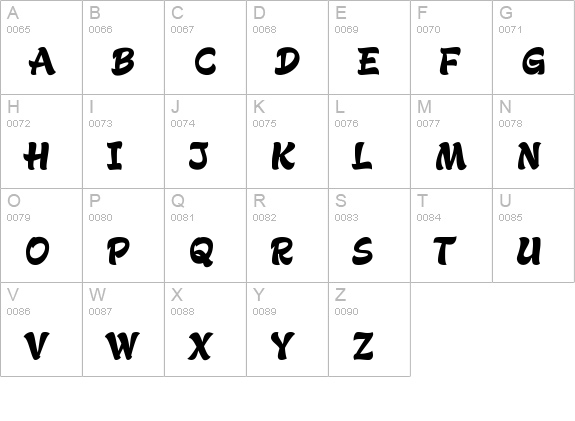
Gecko Personal Use Only Font Details
Introducing Gecko Personal Use Only font, a stylish and versatile typeface that is perfect for adding a touch of elegance to your projects. This font boasts a unique and captivating design, with its sleek and balanced letterforms that exude modern sophistication. Gecko Personal Use Only font is not only visually pleasing but also incredibly functional, making it ideal for a wide range of projects including invitations, branding, logos, and more. Its clean and legible characters ensure readability while still maintaining a sense of individuality and charm. What sets Gecko Personal Use Only font apart is its availability as a free download at FontsMarket.com. Yes, you read that right - this font is freely available, allowing you to enhance your designs without breaking the bank. FontsMarket.com is a trusted source for high-quality fonts, ensuring that you can download Gecko Personal Use Only font with confidence. Whether you're a professional designer or a creative enthusiast, Gecko Personal Use Only font is the perfect addition to your font library. Its versatility allows it to adapt to various design styles, whether you're aiming for a minimalist look or a bold and expressive statement. So why wait? Enhance your projects with the beauty and elegance of Gecko Personal Use Only font. Download it for free at FontsMarket.com and let your creativity soar.